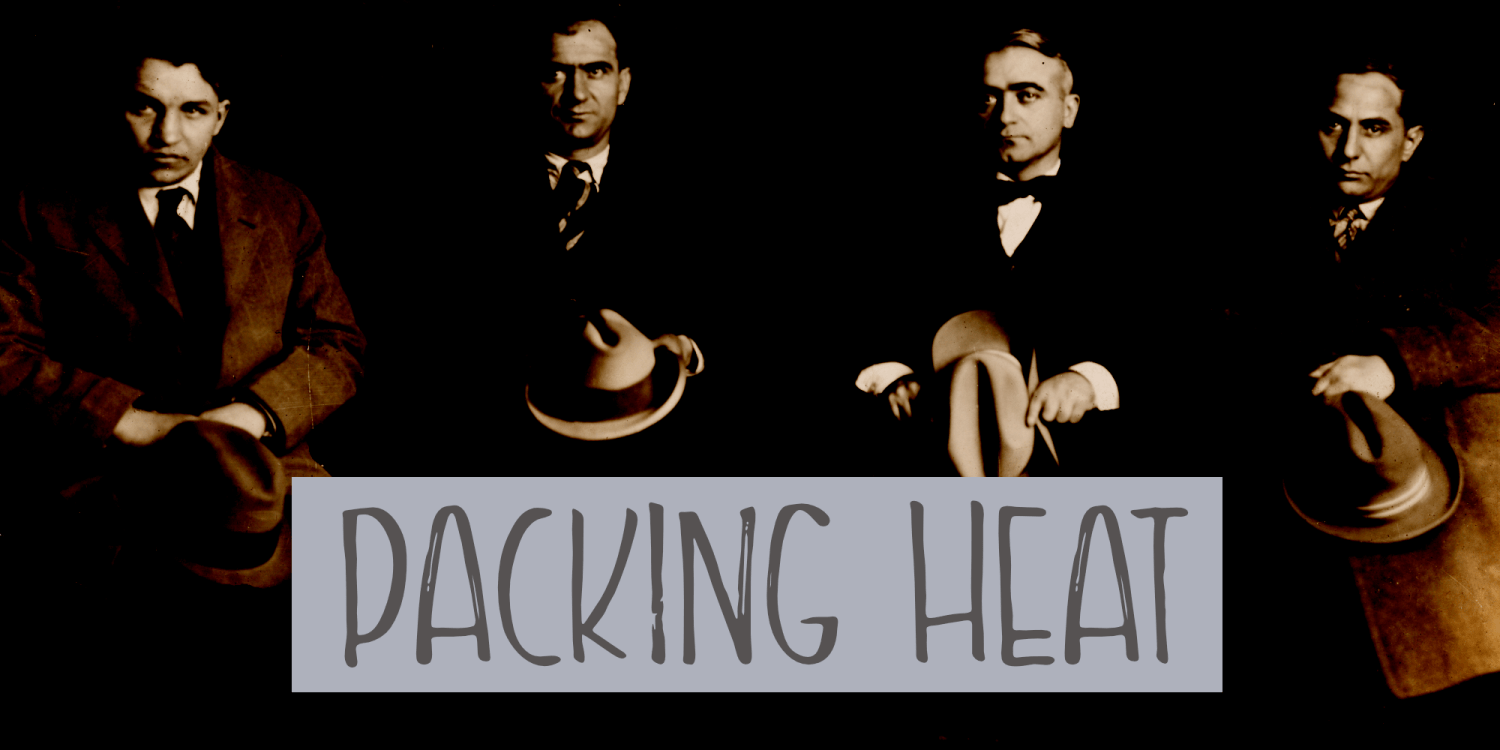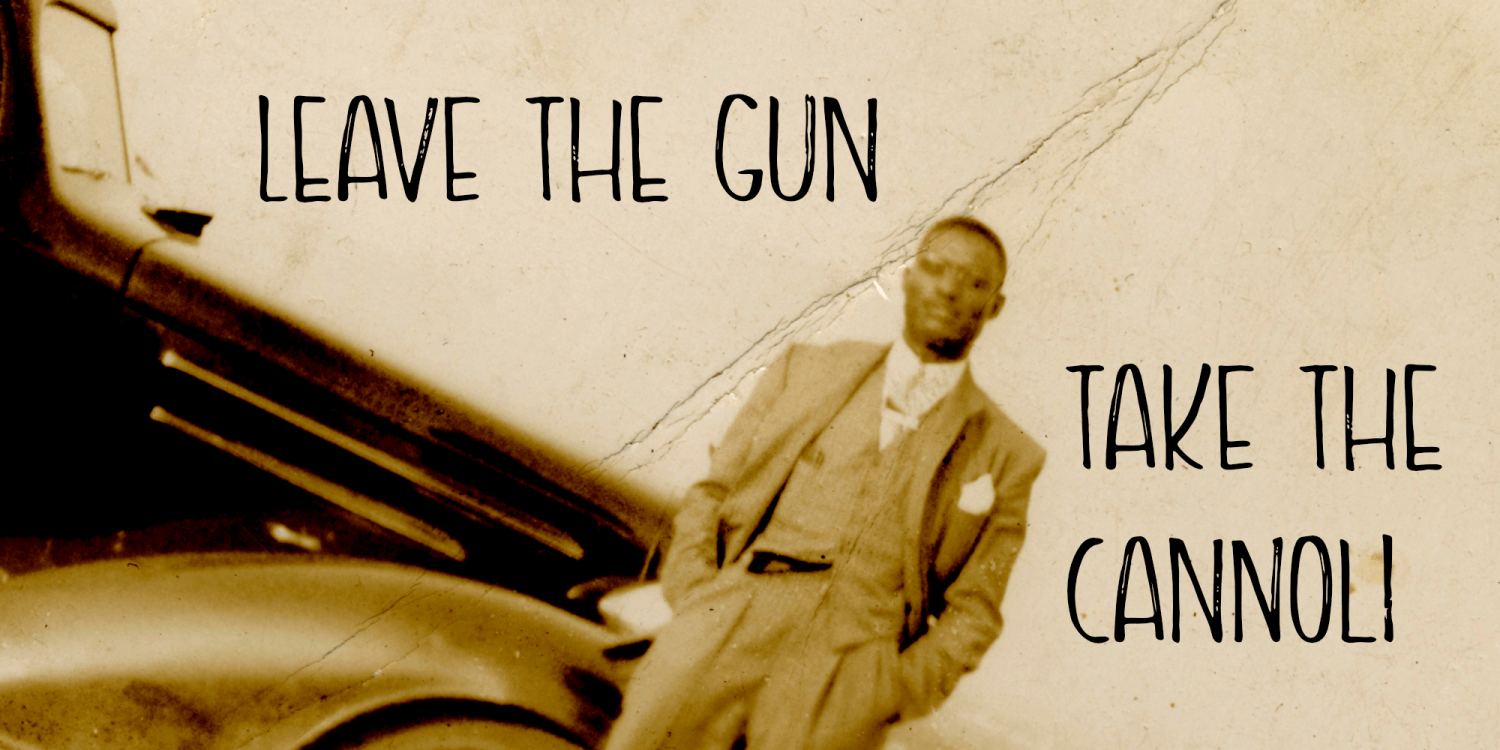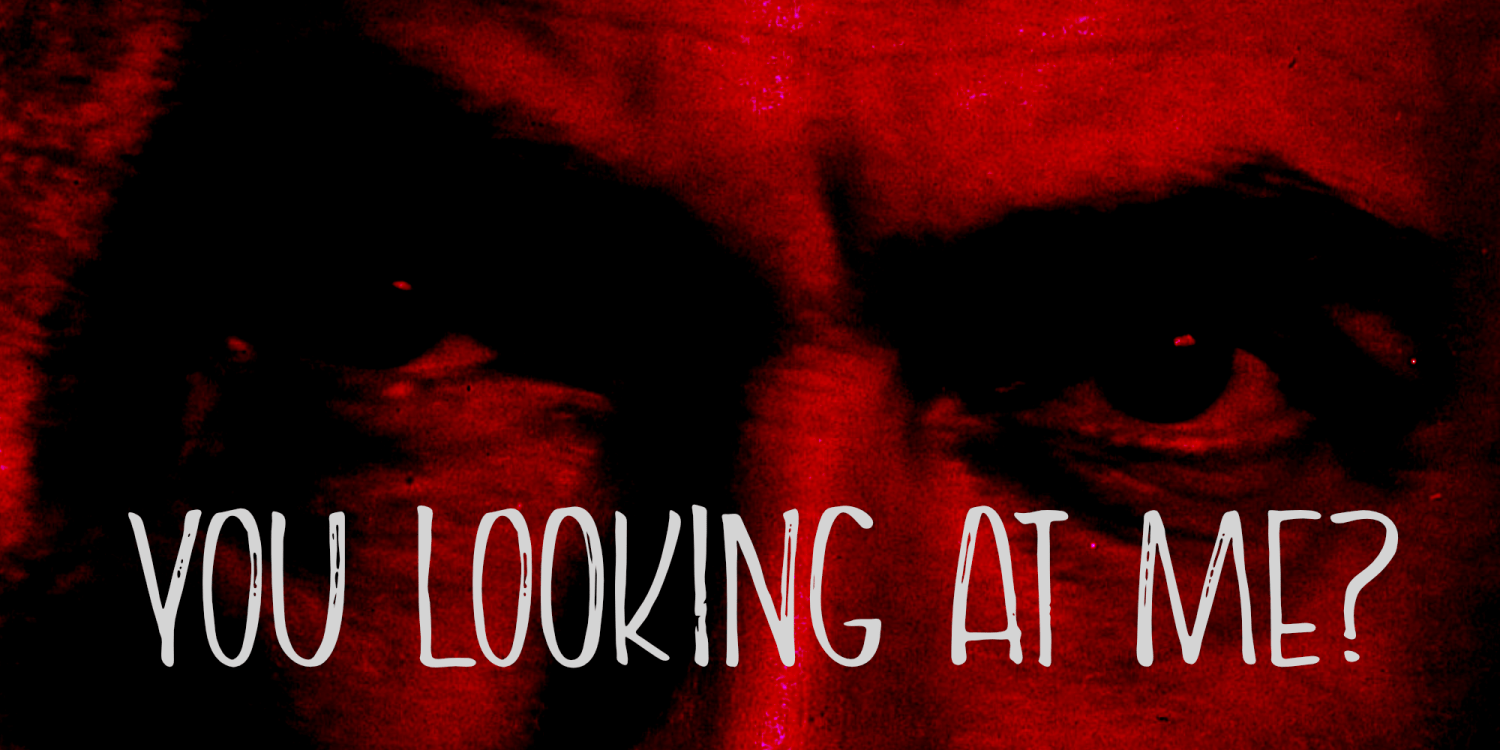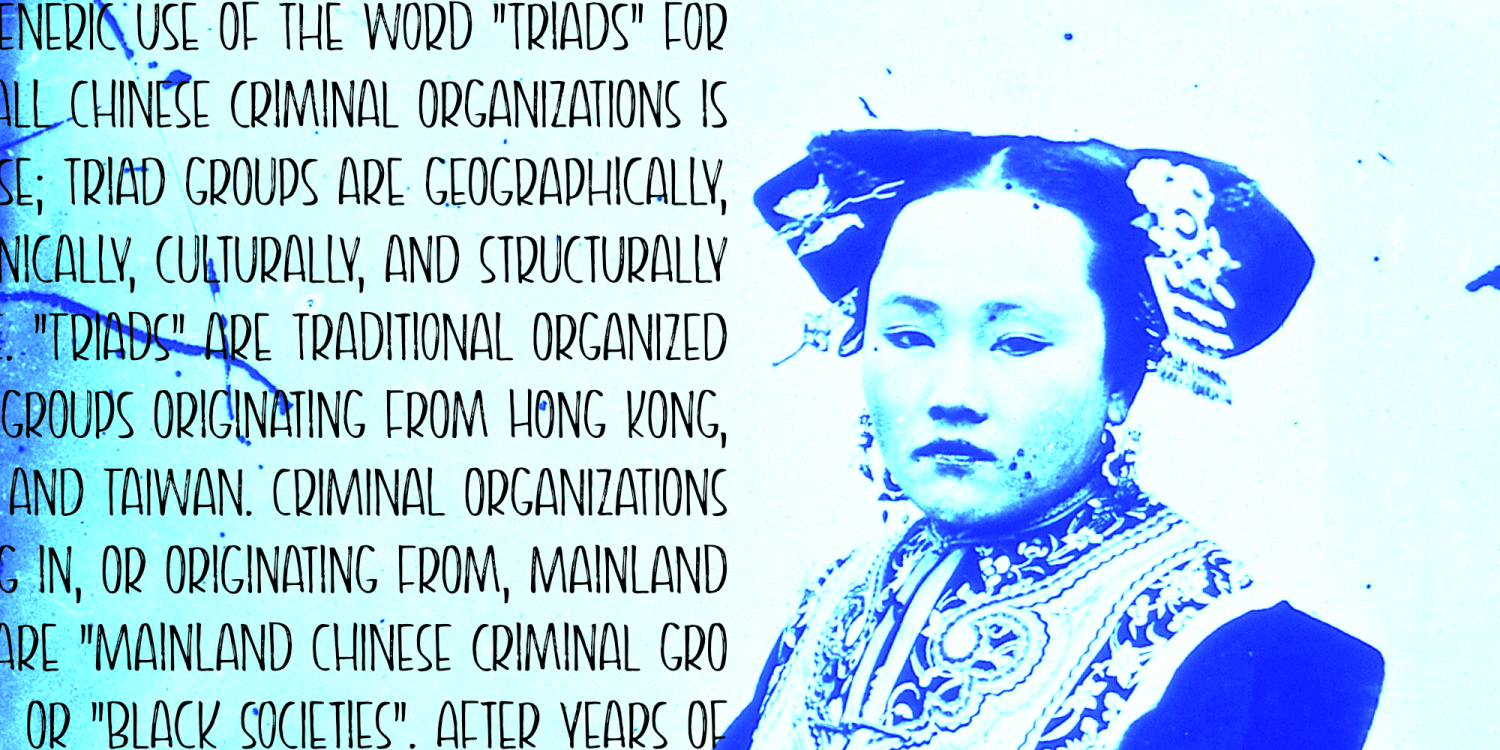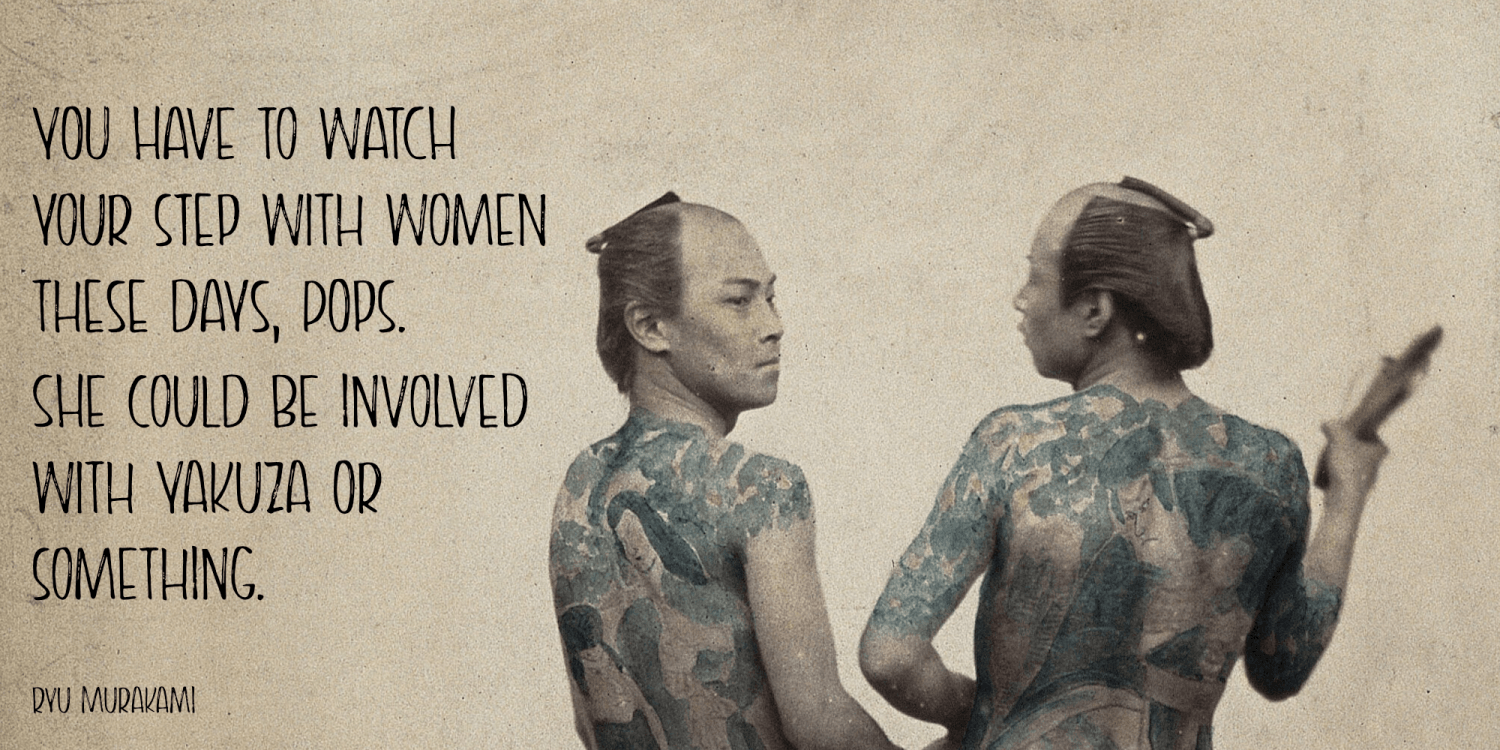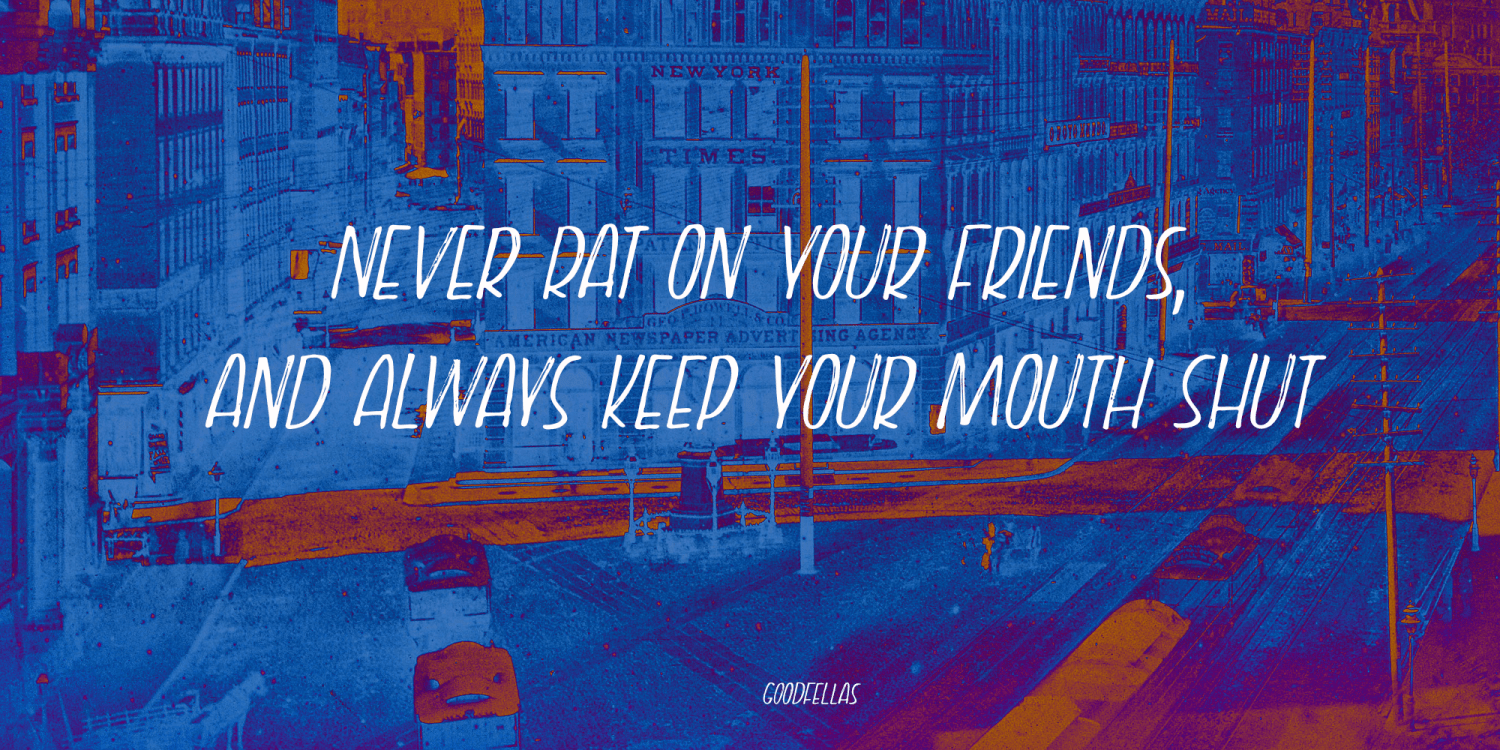
Packing Heat
I came across a photo of Al Capone and some of his henchmen when searching the internet for something completely unrelated. We don’t have a history of notorious gangsters in Holland, so I was intrigued by Capone all of my life.
Packing Heat is 1930’s slang for ‘carrying a gun’, which I thought befitted this handmade font with an early 20th century look.
Packing Heat comes with multilingual support and a set of alternates for the lower case glyphs.